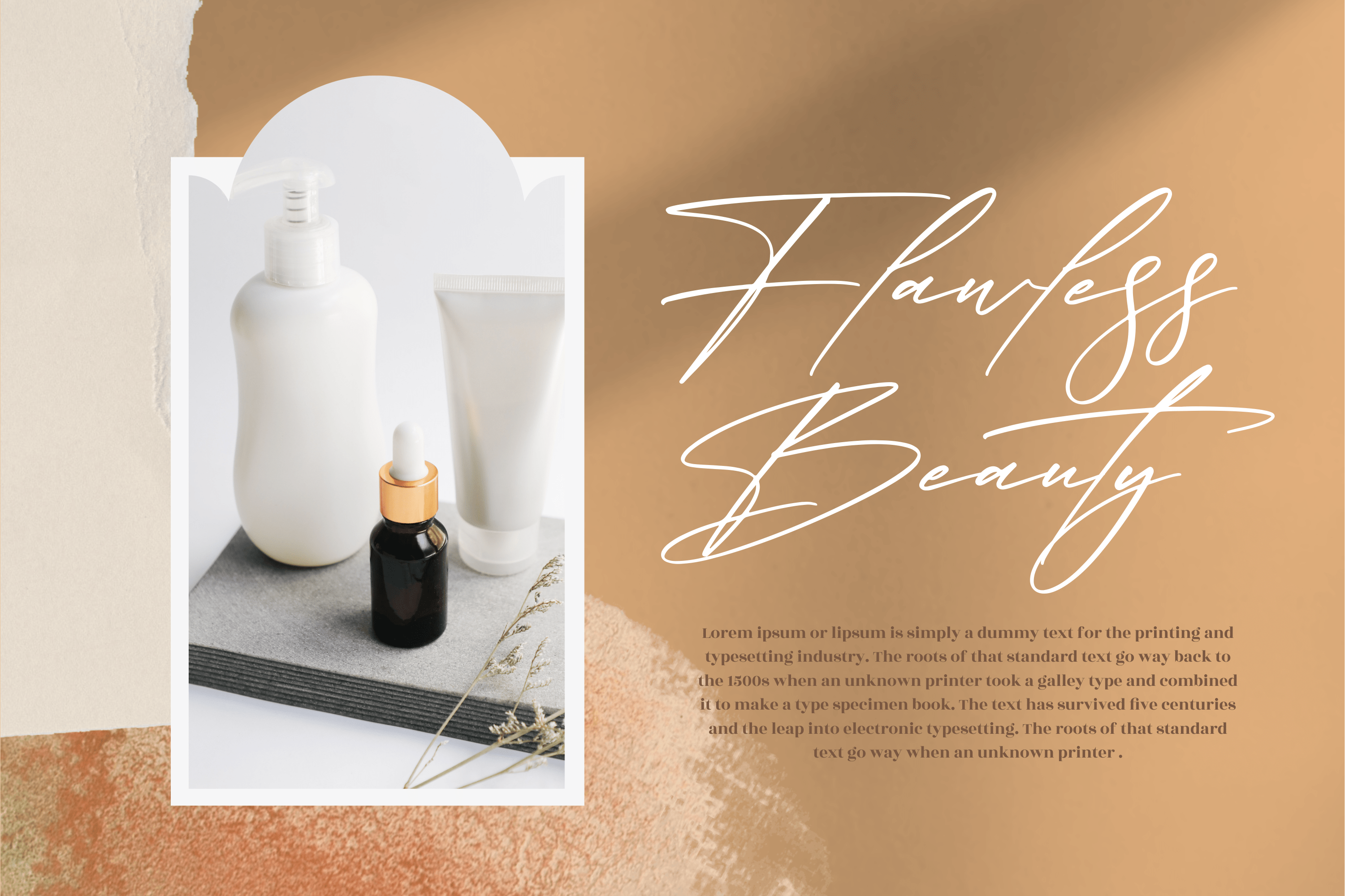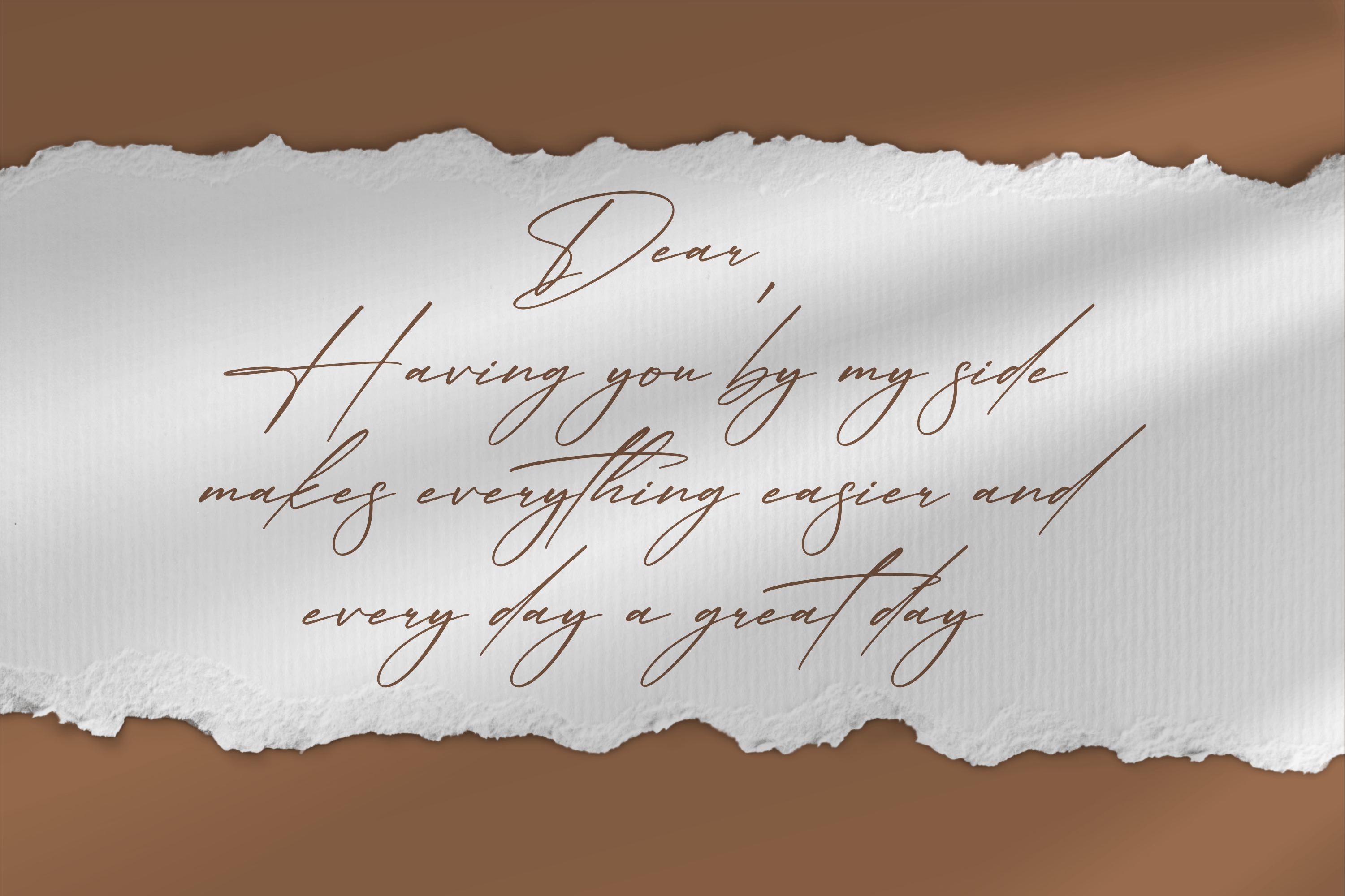
Gabriela Smith Font
Gabriela Smith Script Font
This is a beautiful script font, suitable for any projects such as: logos, branding projects, homeware designs, product packaging, mugs, quotes, posters, shopping bags, t-shirts, book covers, name card, invitation cards, greeting cards, label, photography, watermark, special events, and all your other lovely projects that need a beautiful script taste.